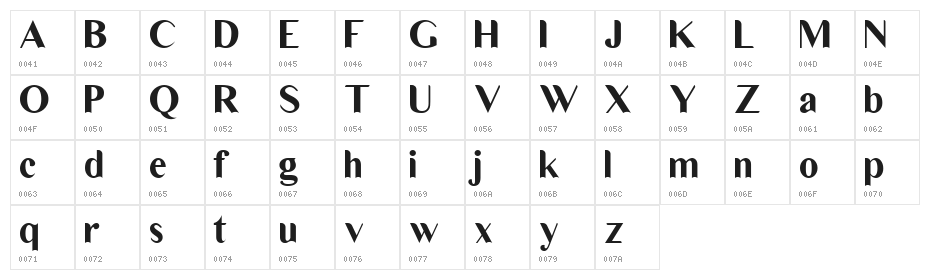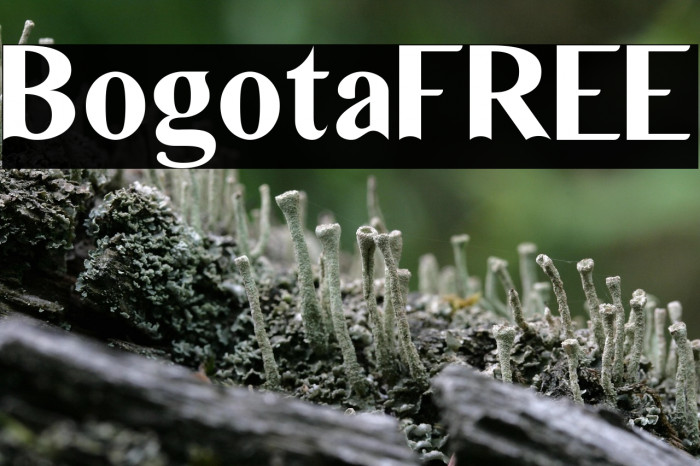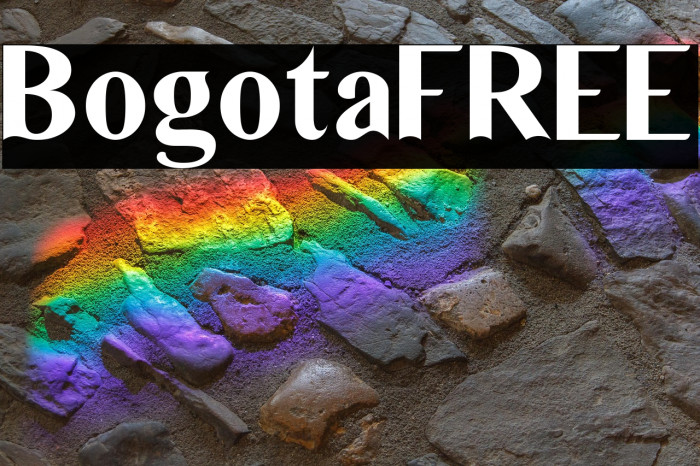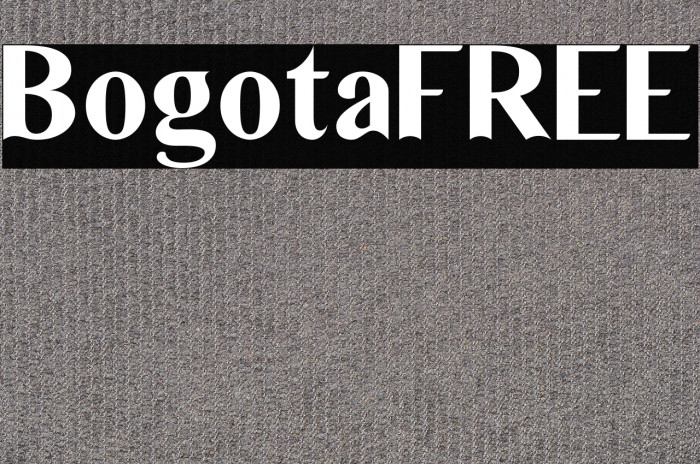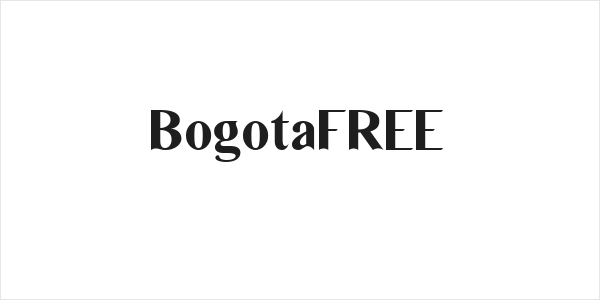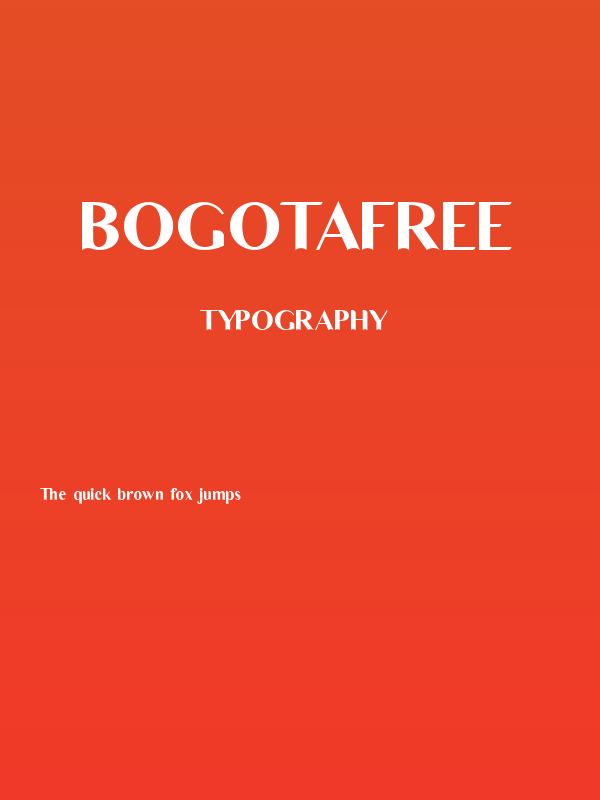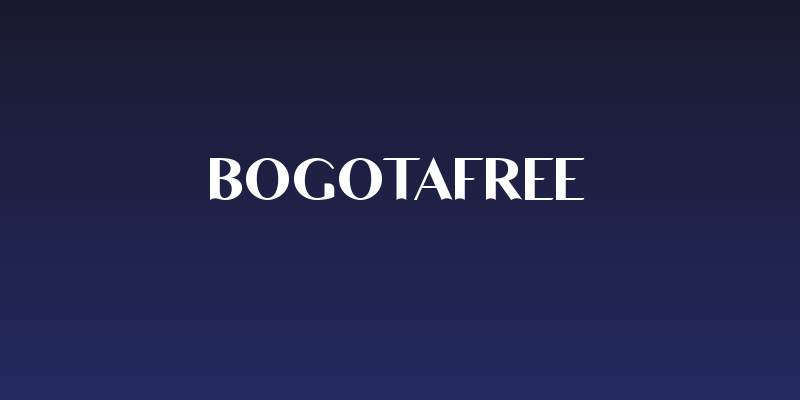
BogotaFREE Font
BogotaFREE Description
This font features a bold and dynamic style with a modern twist. The uppercase letters are characterized by strong, thick strokes that convey a sense of power and authority. The lowercase letters maintain a consistent weight, offering a harmonious balance between the characters. The design includes unique curves and angles, particularly noticeable in letters like 'G', 'Q', and 'R', adding a distinctive flair. The font's overall appearance is clean and versatile, making it suitable for various design applications. Its bold nature ensures high readability, even at smaller sizes, while the subtle artistic touches provide visual interest.